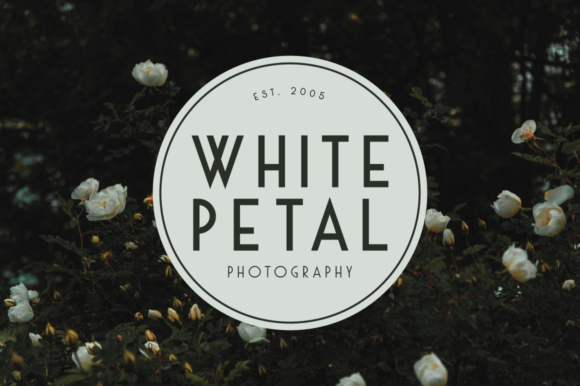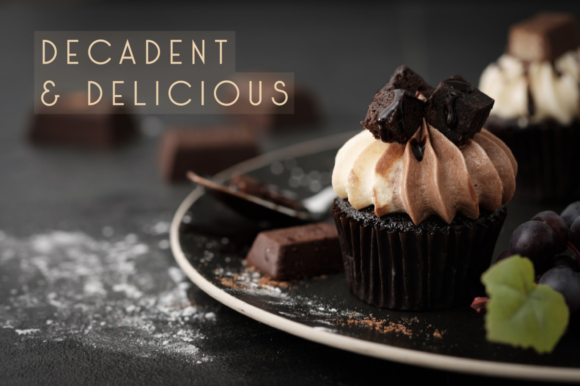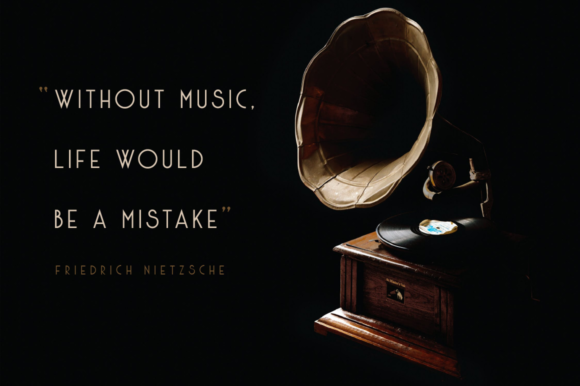
Introduction to Sauvage Font
Have you ever been stuck on a creative project, pouring over design after design, trying to find the perfect fit? It’s like searching for a needle in a haystack, but the needle is the perfect font that elevates your entire project. For designers, finding the right font can be a game-changer, and that’s exactly what the Sauvage Font offers.
As a high-quality sans serif typeface, the Sauvage Font exudes timeless elegance and sophistication. Whether you’re creating a beautiful wedding invitation or a glamorous logo, this font is sure to add a touch of luxury to your design. And the best part? The Sauvage Font is available for free download, making it an invaluable resource for designers on a budget.
Named after Henri Sauvage, a renowned architect of the French Art Nouveau movement, the Sauvage Font is a design gem that offers a transparent background, making it perfect for any creative project. So why settle for anything less when you can have the Sauvage Font, a true design resource that will elevate your work to new heights?
Key Features of Sauvage Font
- Unique characteristics include a bold, modern aesthetic and intricate details
- Perfect for use in graphic design, digital art, and other creative applications
Honest Review: Sauvage Font
I recently had the chance to work with the Sauvage Font in a creative project, and I must say, it’s been a game-changer. This font is perfect for designers looking for a high-quality design resource.
- ✨ The font is incredibly versatile and can be used for a wide range of design projects, from branding to digital products.
- ✨ The design is sleek and modern, making it perfect for creating a professional and sophisticated look.
- ✨ The font features a transparent background, making it easy to overlay on images or other design elements.
- ⚠️ The font is not ideal for use in small text sizes, as it can become difficult to read.
Overall, I’m thoroughly impressed with the Sauvage Font. Its high quality and versatility make it an excellent addition to any designer’s toolkit. I highly recommend giving it a try, especially if you’re working on a creative project that requires a modern and sophisticated look.
Tips for Getting the Most Out of Sauvage Font
For a transparent background, use the font on a transparent layer or apply a background texture to enhance the design. Experiment with different font sizes, colors, and styles to achieve the desired look.
The Sauvage Font is ideal for creative projects, including logos, branding materials, and digital designs. Its high-quality design makes it perfect for use in various industries, from fashion to technology.